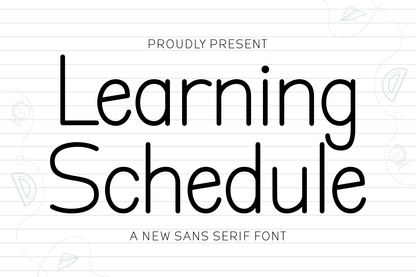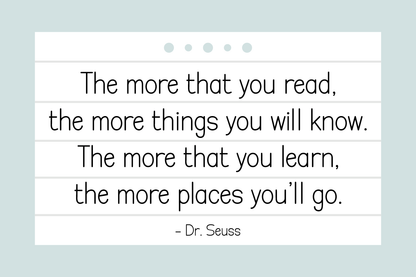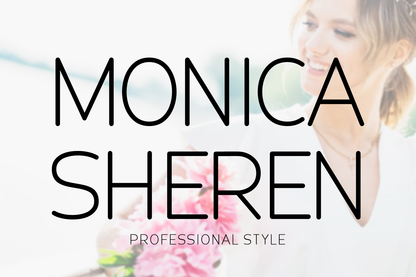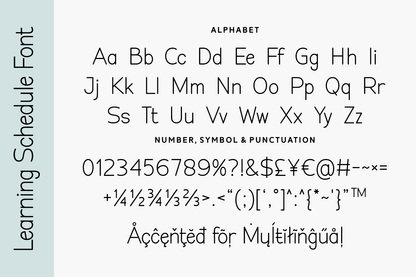
Learning Schedule is a rounded sans serif font inspired by handwriting and classroom aesthetics. It’s a friendly and readable choice for educational materials, children’s books, or school branding. Designed to balance fun and function, its approachable look supports focus and engagement in both print and digital formats.